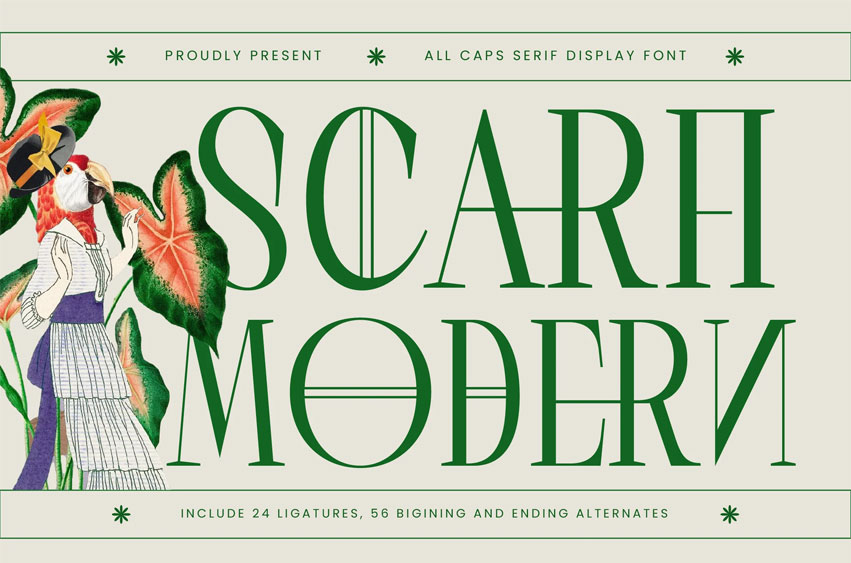
Scarfi Modern Font
Scarfi Modern Font is an all-caps serif display font that combines classic sophistication with modern elegance. Featuring 24 ligatures and 56 beginning and ending alternates, it offers refined letterforms with a luxurious aesthetic. Perfect for high-end branding, editorial layouts, magazines, and artistic packaging, Scarfi Modern delivers and stylish look that enhances any creative project with elegance and precision.